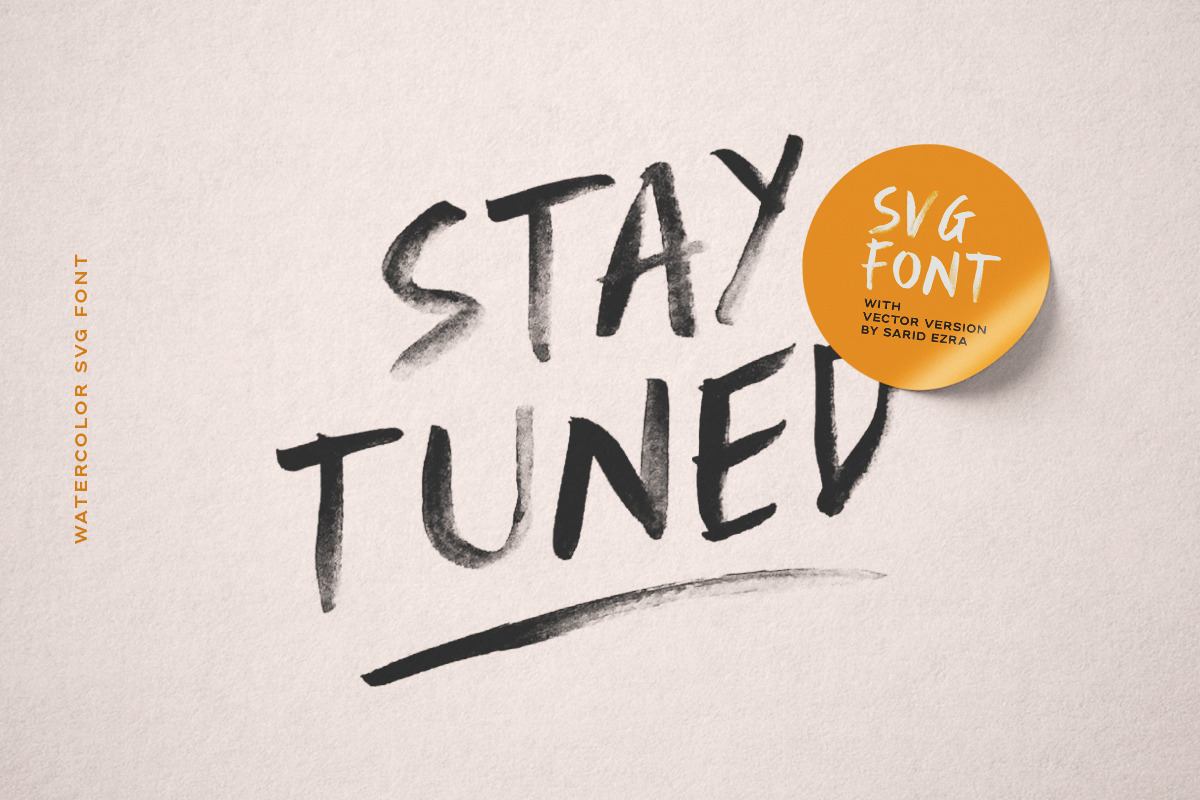
Stay Tuned - Watercolor SVG Font Free Download
Stay Tuned Watercolor SVG Font Free Download
Bring watercolor beauty to your screen with Stay Tuned Watercolor SVG Font Free Download — a stunning hand-painted typeface that offers real brush textures and artistic depth. Designed using advanced SVG font technology, this font gives your projects a vibrant, organic look that mimics real watercolor strokes with incredible detail.
Perfect for wedding invitations, greeting cards, posters, feminine branding, artistic packaging, and creative social media content, Stay Tuned offers a soft yet expressive touch. It includes beautifully rendered letters with authentic texture, plus standard characters and multilingual support for broad versatility.
Add color, emotion, and artistic soul to your typography. Download Stay Tuned today and let your words flow like watercolor on canvas.